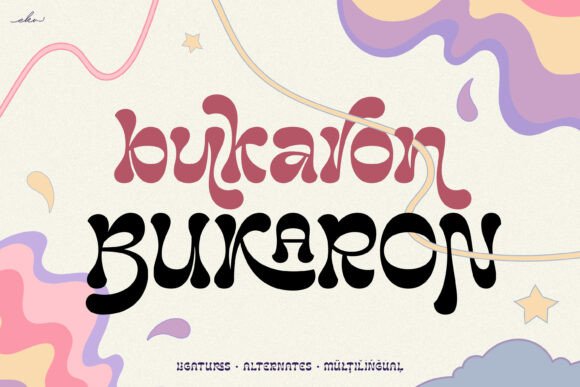
Introducing Bukaron: The Bold Retro Display Font That’s Stealing Hearts
I’ll never forget the design project that led me to Bukaron. I was working on a vintage-themed poster for a client’s retro-style cafe, and I was struggling to find the perfect font. I wanted something bold, eye-catching, and full of personality. That’s when I stumbled upon Bukaron, a bold retro display font that instantly captured my attention. With its unique blend of vintage charm and modern functionality, Bukaron was the perfect fit for my project – and I’m excited to share its awesomeness with you! 😊
As a designer, I’m always on the lookout for fonts that can elevate my projects and make them stand out. Here’s what I love about Bukaron:
• ✨ Unique alternates and ligatures: Bukaron offers a range of creative customization options, making it perfect for designers who want to add a personal touch to their work.
• ✅ Multilingual support: With Bukaron, you can reach a global audience and create designs that resonate with people from different cultures and languages.
• 🔥 Retro charm: Bukaron’s bold, vintage-inspired style is perfect for creating eye-catching posters, logos, and packaging that demand attention.
And, like any font, Bukaron isn’t perfect. Here are a few quirks to keep in mind:
• ⚠️ Limited use in body text: Due to its bold and decorative nature, Bukaron is best suited for headlines and titles rather than body text.
• 🤔 Some characters may require manual kerning: While Bukaron’s kerning is generally good, some character combinations may require manual adjustment for optimal results.
The Story Behind Bukaron
Bukaran was designed with the goal of creating a bold, eye-catching font that captures the essence of retro charm. Inspired by vintage posters, logos, and packaging, Bukaron’s designer aimed to create a font that’s both nostalgic and modern. With its unique alternates, ligatures, and multilingual support, Bukaron is perfect for designers who want to add a touch of personality to their work.
What is Bukaron’s primary use case? Bukaron is ideal for bold, eye-catching designs such as posters, logos, packaging, and apparel.
Does Bukaron support multilingual languages? Yes, Bukaron offers multilingual support, making it perfect for global branding and design projects.
Can I use Bukaron for body text? While Bukaron is primarily designed for headlines and titles, it can be used for short paragraphs of body text. However, its bold nature may not be suitable for extended reading.
Is Bukaron suitable for digital and print designs? Yes, Bukaron is designed to work well in both digital and print environments, making it a versatile font for various design applications.